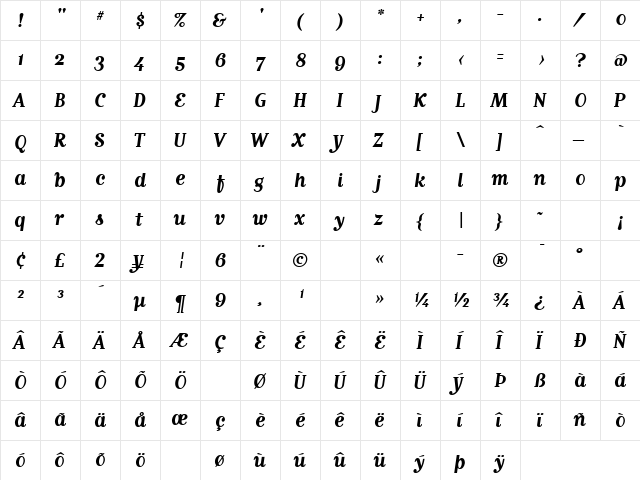
MatrixScriptBoldOldstyle Regular Font Preview
Design Context for MatrixScriptBoldOldstyle Typeface
MatrixScriptBoldOldstyle brings a calligraphic fluidity to the page — its connecting strokes and expressive curves give it an unmistakably human quality. The heavy weight commands attention and anchors typographic hierarchies.
Font Pairing: Combine MatrixScriptBoldOldstyle with a simple geometric sans for maximum contrast — the tension between flowing curves and clean structure is a classic typographic pairing.
Pro Tip: Pair MatrixScriptBoldOldstyle with a clean sans-serif for supporting text. The contrast between fluid script and geometric structure creates an elegant typographic hierarchy.